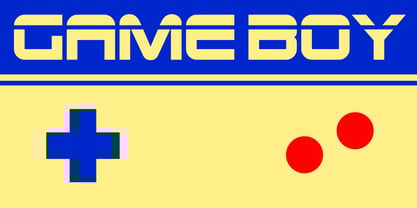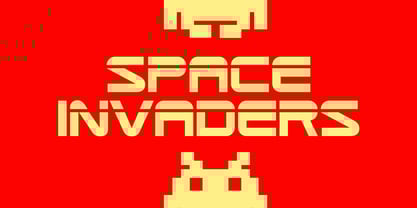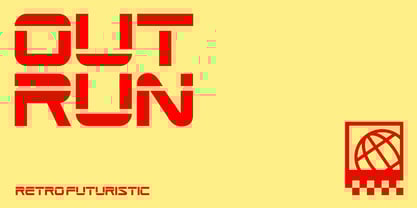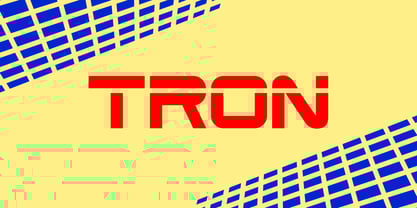
Outrun
by FAEL
The Outrun Font Family was designed by Rafael Serra and published by FAEL. Outrun contains 1 styles. More about this family
This futuristic display sans-serif typeface is constructed using geometric, modular forms characterized by monolinear strokes and segmented construction, resulting in a precise and engineered appearance. Designed primarily for visual impact rather than readability, it draws heavily from retro-futurist aesthetics, merging vintage visions of the future with a sense of technological rigidity. This typeface represents my first original design since 2018.
Designers: Rafael Serra
Foundry: FAEL